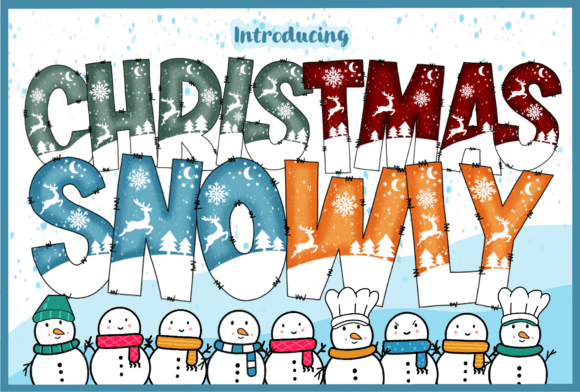
Christmas Snowly Font: Add a Magical Touch to Your Holiday Projects
The holiday season is upon us, and what better way to get into the festive spirit than with a special Christmas-themed font? Introducing Christmas Snowly, a fun and decorative font designed specifically for the holiday season. This charming font is perfect for adding a cozy, wintery feel to your text, making it ideal for Christmas cards, festive posters, and any project that needs a cheerful holiday touch.
The Magic of Christmas Snowly Font
Christmas Snowly is a unique and eye-catching font that is sure to make your holiday projects stand out. Each letter in the font features intricate snow patterns and adorable deer shapes, giving it a whimsical and festive feel. The font’s design is carefully crafted to evoke the magic of the holiday season, with delicate snowflakes and playful deer adding a touch of wonder to your text.
Example of Christmas Snowly Font in use
Perfect for Holiday Projects
Christmas Snowly is the perfect font for any holiday project that needs a touch of festive cheer. Whether you’re designing Christmas cards, creating festive posters, or working on a holiday-themed website, this font is sure to add a magical touch to your text. The font’s playful and whimsical design makes it ideal for:
- Christmas cards and invitations
- Festive posters and flyers
- Holiday-themed websites and blogs
- Social media graphics and posts
- Packaging and labeling for holiday products
Key Features of Christmas Snowly Font
Here are some of the key features that make Christmas Snowly Font so special:
- Unique snow patterns: Each letter in the font features intricate snow patterns that add a touch of winter wonder to your text.
- Cute deer shapes: The font’s design includes adorable deer shapes that add a playful and whimsical touch to your text.
- Festive feel: The font’s design is carefully crafted to evoke the magic of the holiday season, making it perfect for any festive project.
Font Specimen: Christmas Snowly
Here’s a specimen of the Christmas Snowly Font:
Aa Bb Cc Dd Ee Ff Gg Hh Ii Jj Kk Ll Mm Nn Oo Pp Qq Rr Ss Tt Uu Vv Ww Xx Yy Zz
Tips and Variations
Here are some tips and variations to help you get the most out of Christmas Snowly Font:
- Experiment with colors: Try pairing the font with different colors to create a unique and eye-catching effect.
- Add textures: Add textures and patterns to your text to give it a more festive feel.
- Mix and match: Combine Christmas Snowly Font with other fonts to create a unique and interesting effect.